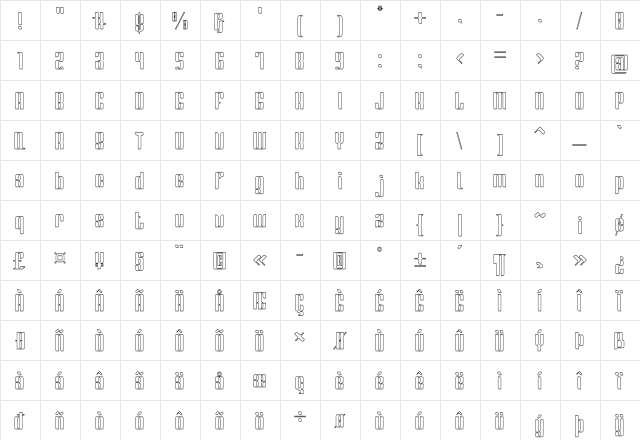
Greenleaf Outline Regular
Design Context for Greenleaf Outline Typeface
Greenleaf Outline brings ornamental detail and strong personality to headlines and identities, where visual impact matters more than quiet functionality.
Font Pairing: Pair with a clean neutral sans-serif for body copy to let Greenleaf Outline's character lead without overwhelming the composition.
Pro Tip: Treat Greenleaf Outline as the centrepiece of your typographic hierarchy. One strong heading set in a decorative face can carry an entire layout.